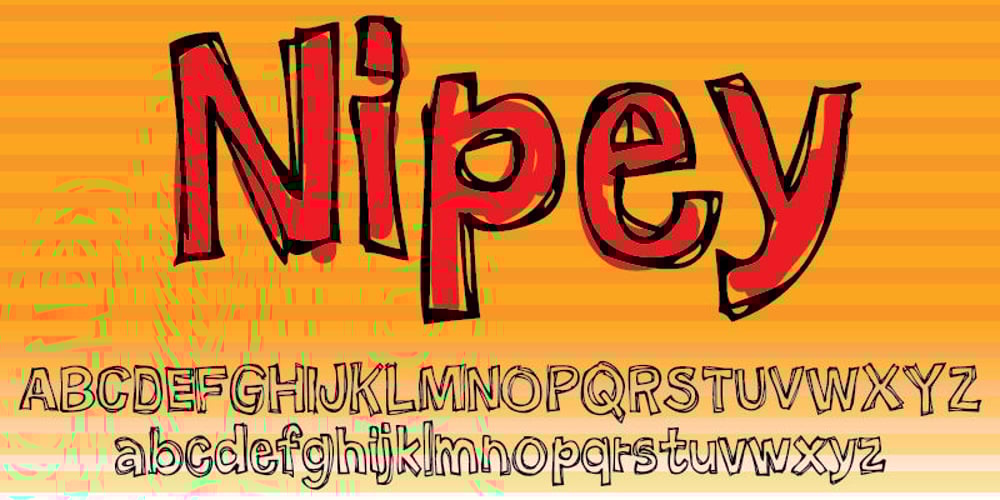
Nipey Font Family was designed by Jakob Fischer and published by PizzaDude.dk. Nipey contains 1 styles and family package options. Every single character in Nipey is unique! Meaning that no characters is a copy of another. All accented characters therefore are hand-drawn and unique. For example, the letter “ñ” is not a copy of ‘n’ with a diacritical tilde – and this goes for all accented characters, as well as the ordinary ones! Besides that, Nipey has got autoligatures for doublelettered lower- and uppercase, as well as numbers. But that’s not all! Nipey also has got a full set of alternate lower- and uppercase letters! Talk about a unique font, huh! You will need to use OpenType supporting applications to use the autoligatures.